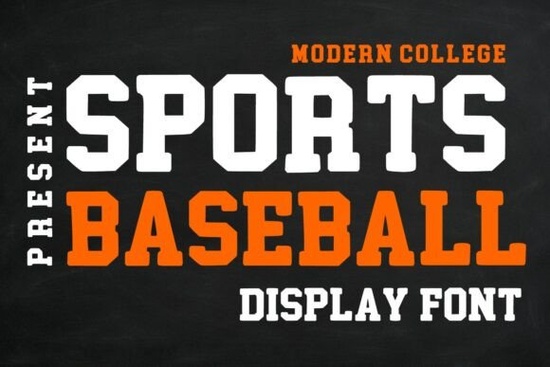
If you're working on a sports-themed design especially anything baseball-related you’ve probably looked for a font that captures the energy of the game without feeling dated. The Sports Baseball Font delivers exactly that: a bold, modern take on classic college and varsity lettering. It’s built with strong block shapes and clean lines, making it instantly recognizable and full of athletic confidence. Whether you’re designing team jerseys, promotional posters, or fan merchandise, this font brings a professional, sporty vibe that resonates with players and fans alike.
What sets this display font apart is how well it balances tradition and freshness. Unlike overly ornate or cartoonish alternatives, Sports Baseball keeps its structure crisp and legible even at large sizes. That makes it especially useful for print-on-demand sellers creating t-shirts, hoodies, or mugs where clarity and impact matter just as much as style.
When should you use the Sports Baseball Font?
This font shines in projects that need to communicate strength, teamwork, or school spirit. Think:
- Baseball team logos or wordmarks
- Game-day posters and social media graphics
- School or league branding materials
- Custom apparel for players, coaches, or fans
- Merchandise like caps, water bottles, or tote bags
It’s not meant for body text or long paragraphs this is a display font through and through. But for headlines, names, slogans, or short phrases, it commands attention without overwhelming your layout.
How does it compare to other athletic fonts?
Many sports fonts lean heavily into retro aesthetics or exaggerated serifs. While those have their place (like the Block Retro Font, which nails vintage ballgame charm), the Sports Baseball Font offers a cleaner, more contemporary alternative. It’s closer in spirit to collegiate branding used by universities today think bold sans-serif letterforms with just enough character to feel unique.
If you’ve explored other Creative Fabrica display fonts, you might also appreciate how versatile this one is across age groups. Unlike fonts designed specifically for kids (such as the Kinder Classroom Font) or ultra-stylish options like the Girls Stylish Font, Sports Baseball works equally well for youth leagues, high school teams, or adult recreational clubs.
And while it shares some DNA with award-show elegance (imagine pairing it thoughtfully with something like the Oscar Font for a “Most Valuable Player” trophy design), its core identity stays grounded in athletics not glamour.
Practical tips for using it effectively
To get the most out of this font, keep your layouts simple. Let the letterforms do the talking by avoiding busy backgrounds or competing typefaces. Pair it with a neutral sans-serif (like Helvetica or Montserrat) for supporting text, and stick to classic color combos: navy and white, red and cream, or black and gold.
Also, remember that spacing matters. Because the characters are bold and blocky, giving them a little extra room especially in all-caps usage helps maintain readability. Most design software lets you adjust letter-spacing (tracking) easily; try increasing it slightly for jersey names or poster titles.
Who is this font really for?
Small business owners selling custom sports gear will save time by using a font that already embodies team pride. Crafters making vinyl decals or sublimation prints for local leagues won’t need to layer effects the font’s built-in weight gives it presence right out of the box. And designers working on school rebrands or event promotions can rely on its consistent, scalable forms across digital and print formats.
Even hobbyists creating birthday shirts for a Little League player will find it intuitive: no complicated glyphs or alternate characters to navigate just straightforward, impactful typography.
Before you start your next project, ask yourself:
- Is my design focused on baseball, softball, or general team sports?
- Do I need a font that reads clearly from a distance (like on a jersey or banner)?
- Am I aiming for a modern, clean athletic look rather than vintage or whimsical?
If you answered yes to most of these, the Sports Baseball Font is likely a strong fit. And if you’re exploring similar styles, don’t forget to check out other display fonts in the same category like the Sports Baseball collection for subtle variations that might better match your specific vision.